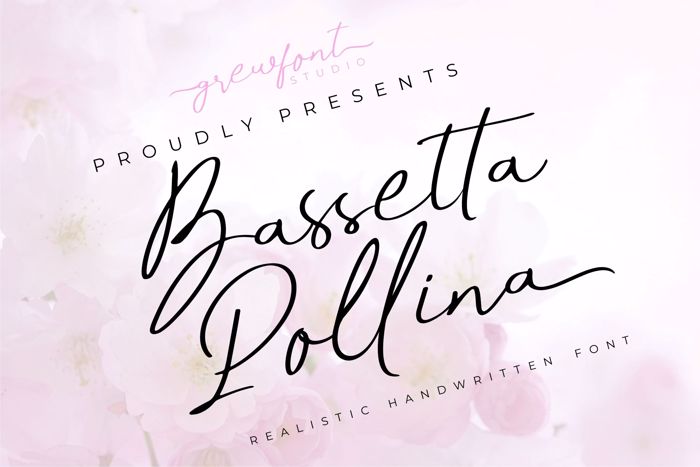
Bassetta Pollina Font
Bassetta Pollina feels modern and elegant. This stunning handwritten font is a stylish homage to classic handwritten calligraphy. It features a varying baseline, smooth lines, gorgeous glyphs, ligatures and stunning swashes alternates. Fall in love with its authentic feel and use it to create gorgeous wedding invitations, beautiful stationary art, eye-catching social media posts, and cute greeting cards.